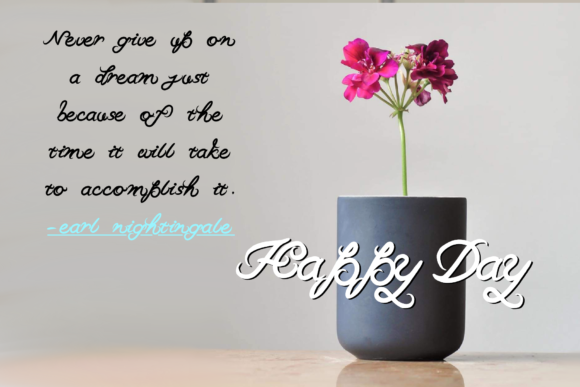
Get ready to fall head over heels for Mustache, a script font that exudes elegance and charm. This exquisite handwritten font is the perfect choice for adding a touch of romance to your special moments. Imagine your wedding invitations adorned with Mustache's graceful curves, creating an unforgettable impression on your guests. Or let your love letters flow with the whimsical charm of Mustache, expressing your heartfelt emotions in an enchanting way.
With Mustache, you'll unlock a world of creative possibilities. Its delicate strokes and graceful flourishes will transform your designs into works of art. Whether you're crafting stunning branding materials, designing captivating social media posts, or creating personalized keepsakes, Mustache will add a touch of sophistication and flair to every project.
But it's not just about aesthetics; Mustache is also incredibly versatile. Its effortless flow makes it suitable for a wide range of applications, from elegant invitations to playful posters. Whether you're a professional designer or a creative enthusiast, Mustache has the versatility to bring your artistic visions to life.
So why wait? Embark on a typographic adventure with Mustache today. Let its enchanting curves and romantic charm captivate your audience, leaving an unforgettable impression with every design you create. Embrace the beauty of handwritten elegance and elevate your projects to new heights.